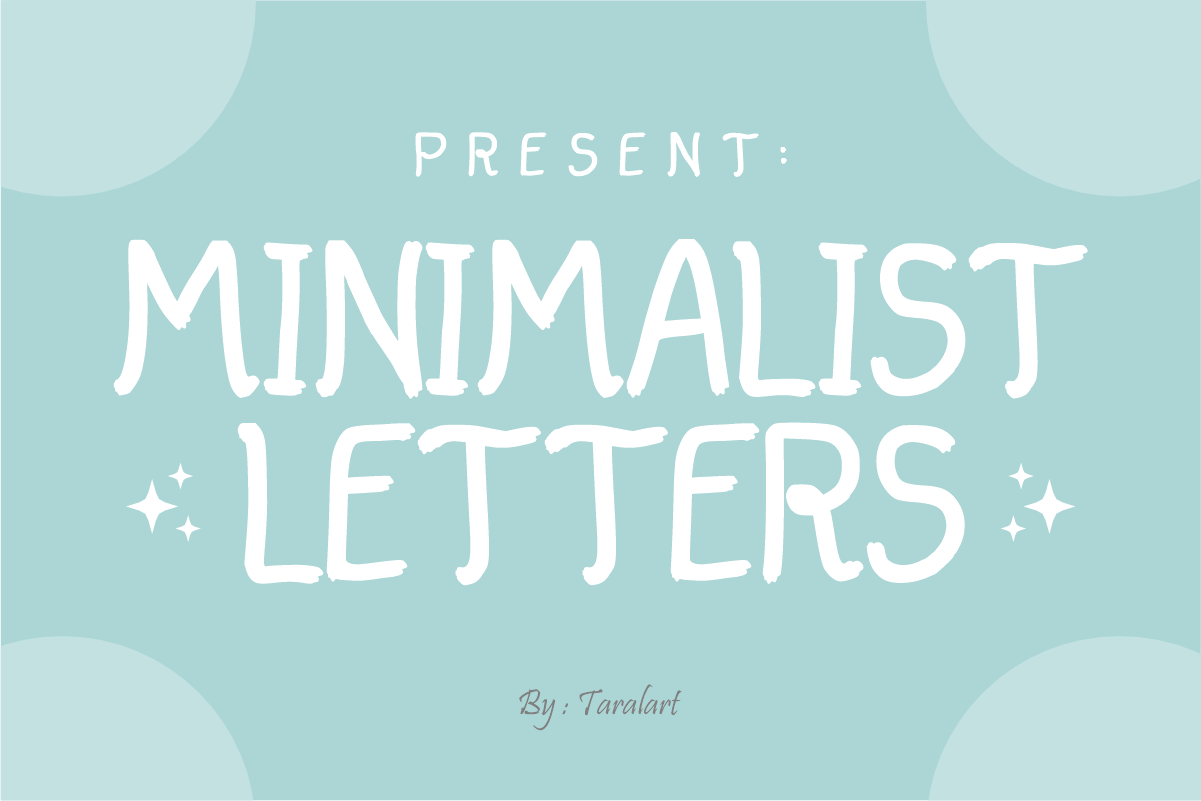
Minimalist Letters - Simple Font
Minimalist Letters is a clean, tall handwritten display font that beautifully combines simplicity with a warm, organic touch. Featuring slender, hand-drawn sans-serif lines, this versatile font effortlessly brings a modern, aesthetic feel to your everyday designs. Every character is cleanly vectorized to ensure crisp, flawless cutting on Cricut and Silhouette machines.